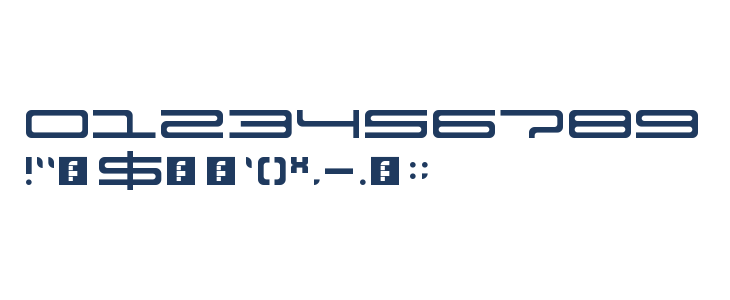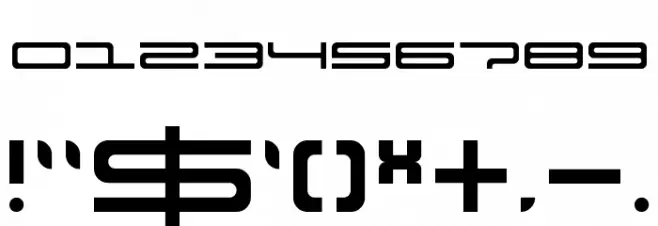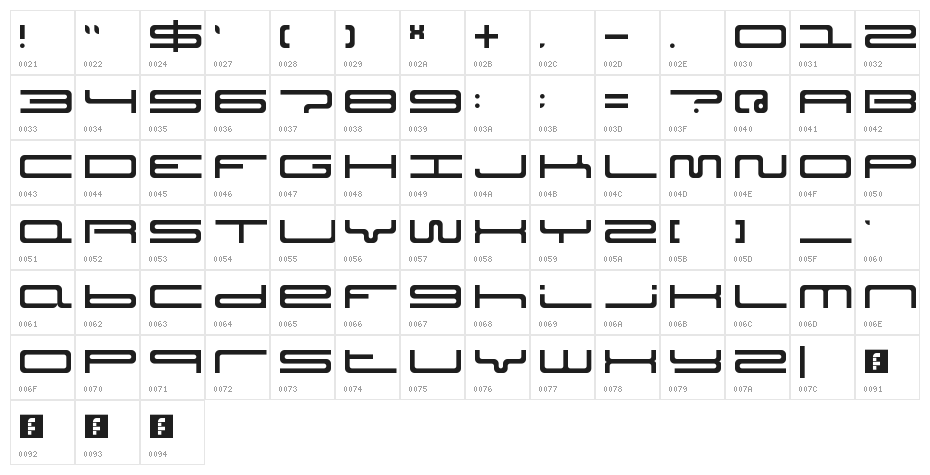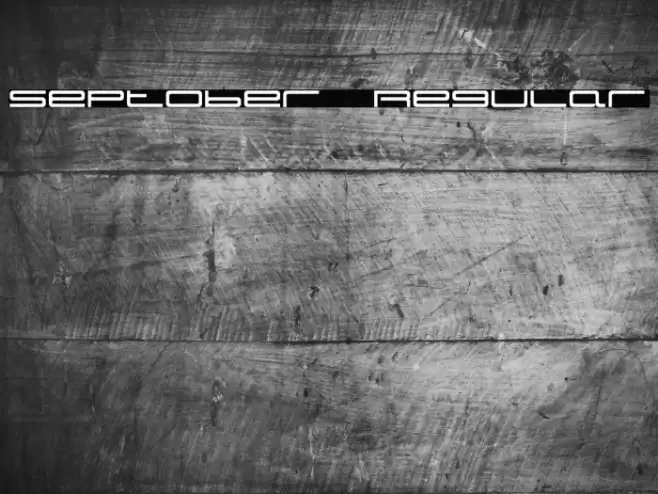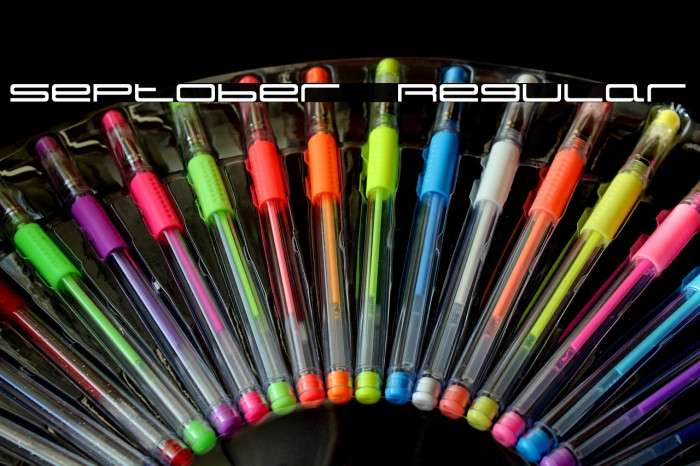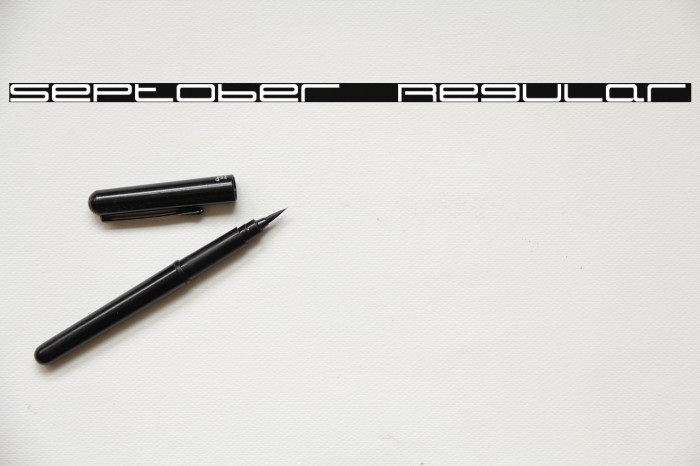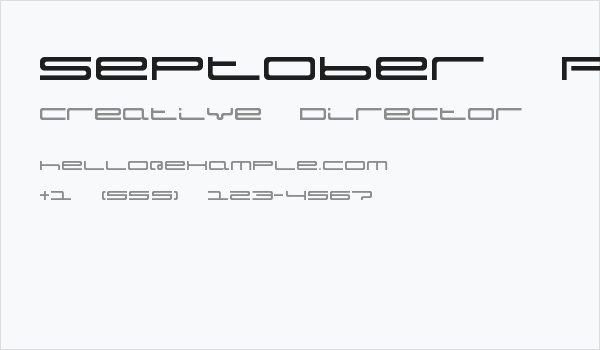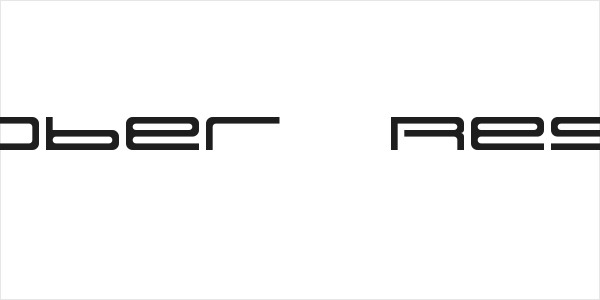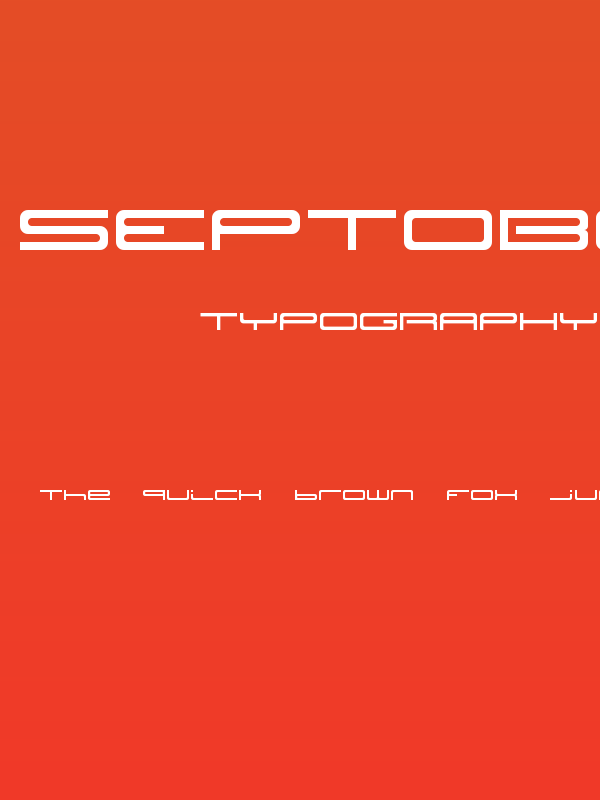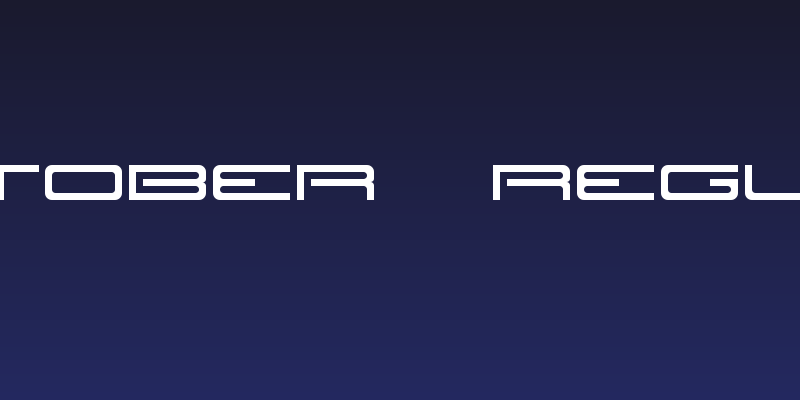
Septober Regular Font
Septober Regular Description
This font features a futuristic and geometric design, characterized by its clean lines and structured form. The characters are composed of consistent, straight edges and rounded corners, giving it a modern and sleek appearance. The uppercase and lowercase letters maintain a uniform height, creating a harmonious and balanced look. The numerals and special characters follow the same design principles, ensuring a cohesive visual style throughout. This font's unique style makes it stand out, ideal for projects that require a contemporary and tech-savvy aesthetic.
| Proposed Projects | Ideal for technology branding, sci-fi themed designs, modern advertising, and digital interfaces. |